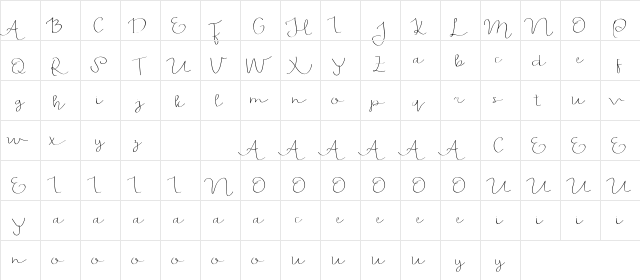
Feliciana Demo Regular
| Foundry | Edric Studio |
| Designer | Saila nurissalma |
Design Context for Feliciana Demo Typeface
Feliciana Demo is a composed and adaptable typeface that performs quietly and consistently across a wide range of design contexts.